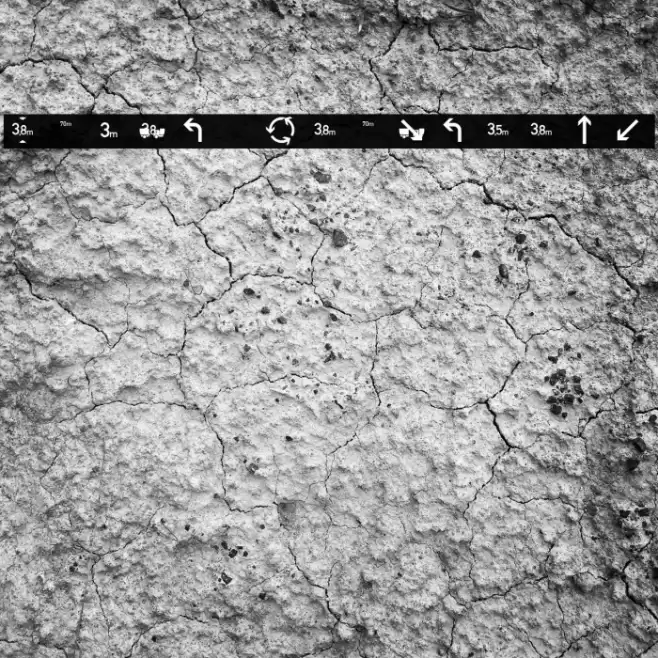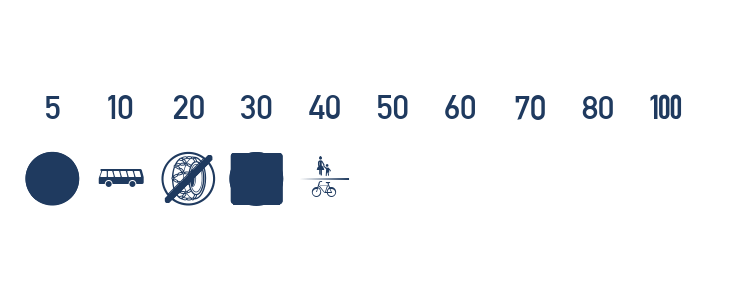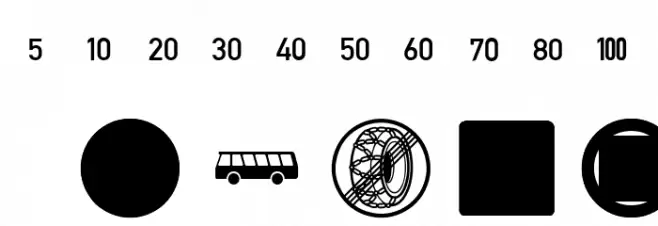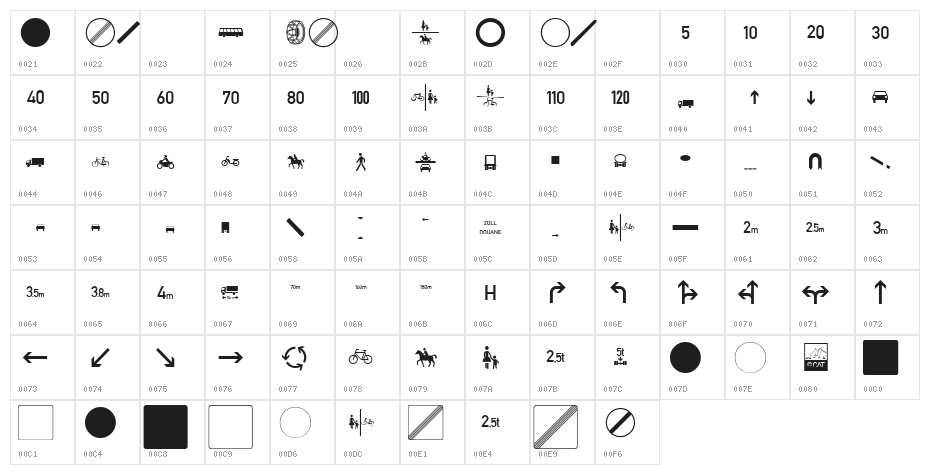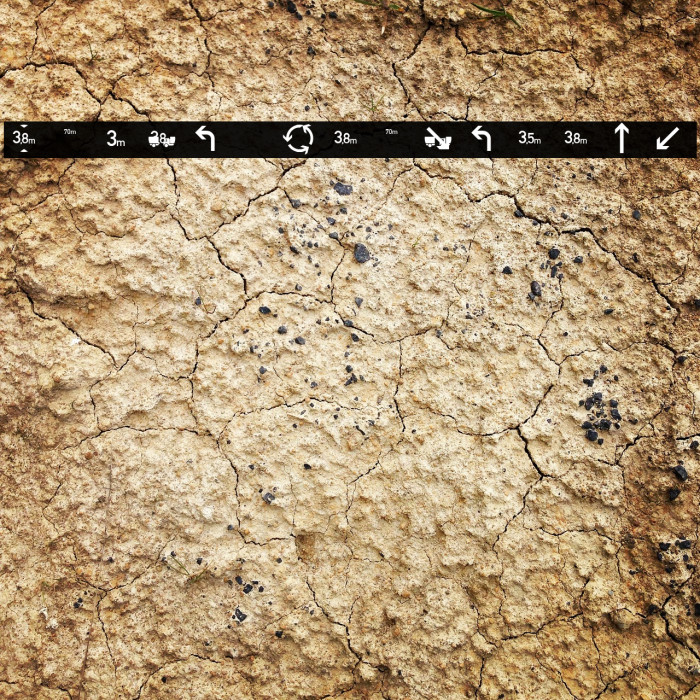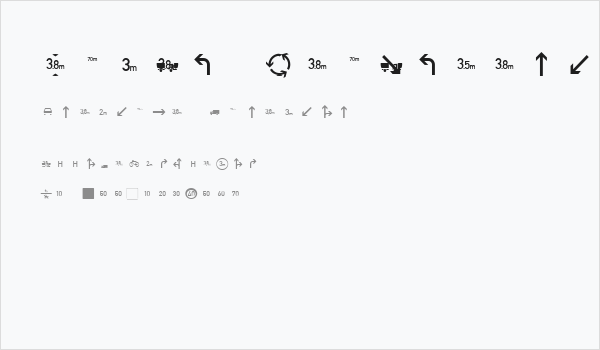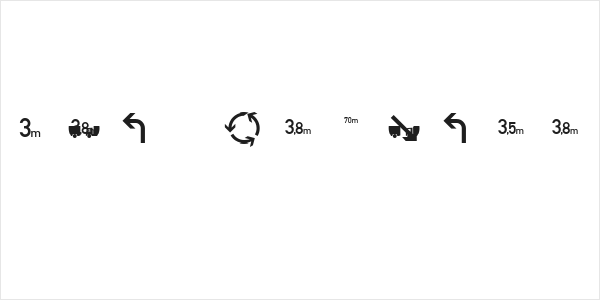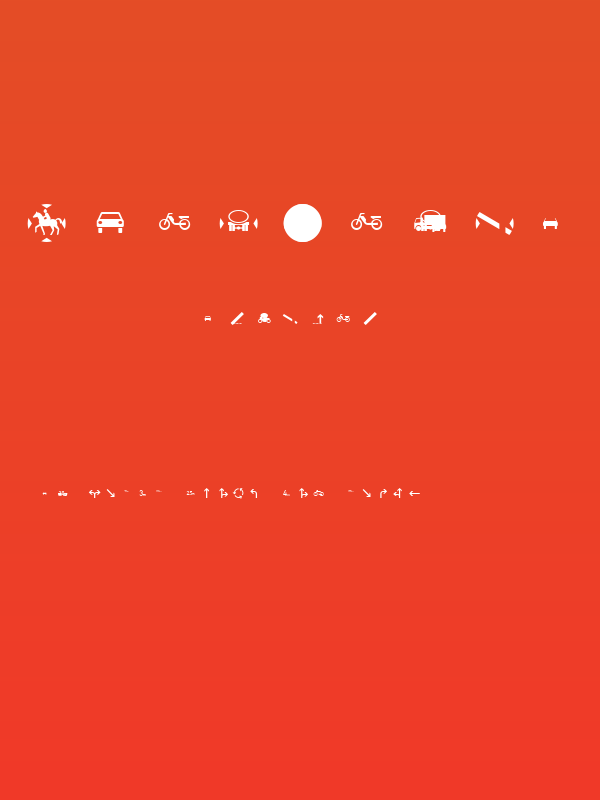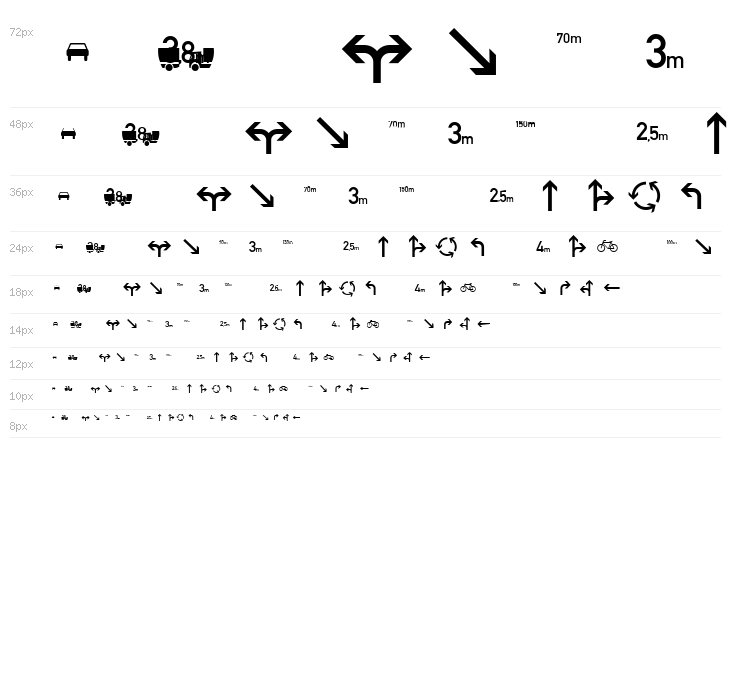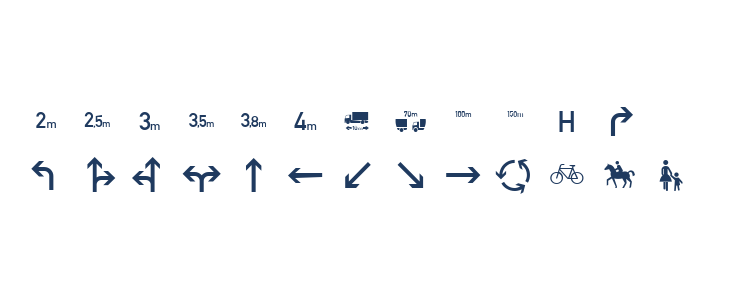
A pictogram and symbol set featuring bold, geometric, and highly legible icons for transportation, traffic, and wayfinding, paired with a clean, sans-serif numeric and letter style. The icons are simple, filled silhouettes with consistent stroke weight and minimal detail, designed for maximum clarity and quick recognition.
Bold, geometric pictograms and sans-serif numerals for signage from Uncategorized fonts.
- Proposed Projects: Road signage, public transportation maps, wayfinding systems, instructional graphics, infographics.
- Overall Style: Modern, Functional
- Use Case: Signage, Wayfinding, Infographics, Instructional Design